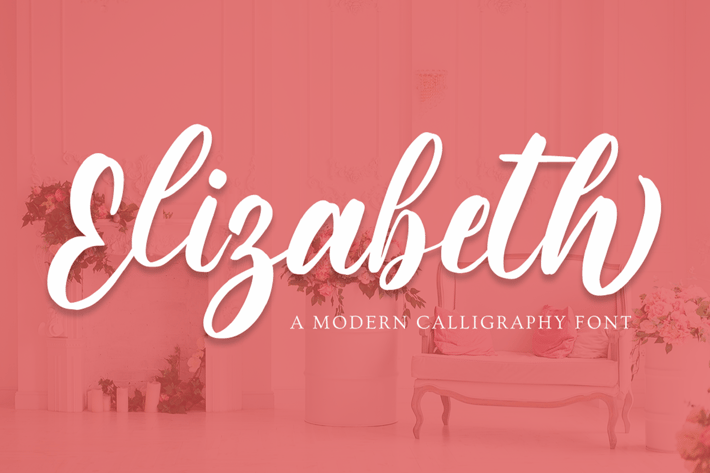
Looking for a font that’ll make your branding radiate elegance? Something that’s versatile, stylish, and eternal?
Introducing Elizabeth - A Modern Calligraphy Font.
This handcrafted calligraphy font can be used for various different promotions or projects. Use it to create standout headings, promote your online sales, Instagram quotes, and even printed materials like business cards, t-shirts, or invitations.
Get whisked away to the Victorian era with Elizabeth.
Multilingual & Ligature Support
Full sets of Punctuation and Numerals